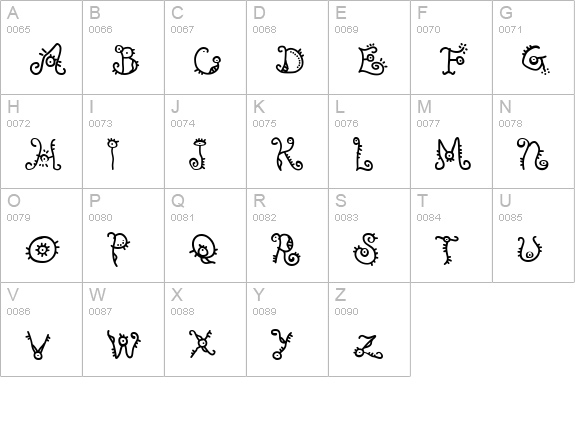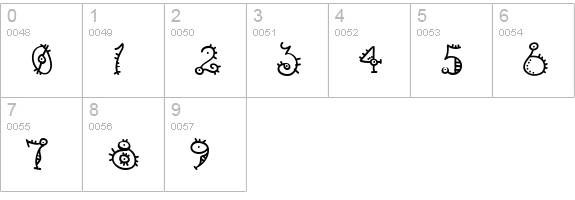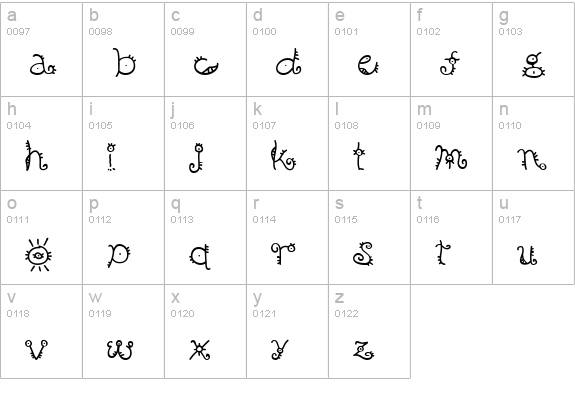
B Surfers Plane Font Details
Introducing B Surfers Plane, a captivating and dynamic font that effortlessly combines the essence of boldness and elegance. This font is the perfect choice for those seeking a unique and eye-catching design with a touch of retro nostalgia. B Surfers Plane is a versatile typeface that can be used across a wide range of projects, from branding and logos to headlines and posters. Its distinctive letterforms are carefully crafted to convey a sense of energy and movement, making it ideal for projects that require a vibrant and lively aesthetic. One of the standout features of B Surfers Plane is that it is freely available to download at FontsMarket.com. Yes, you heard it right – this incredible font can be yours without any cost. Whether you are a professional designer or a hobbyist, this free font allows you to add a touch of creativity to your projects without breaking the bank. With its smooth curves and playful character, B Surfers Plane brings a sense of fun and excitement to any design. Its bold and distinct appearance ensures that your message will be delivered with impact and style. Whether you are looking to create a retro-inspired logo or a vibrant poster, this font is sure to make a lasting impression. So why wait? Head over to FontsMarket.com and download B Surfers Plane today. Embrace the freedom of creativity and elevate your designs to new heights with this captivating and freely available font.